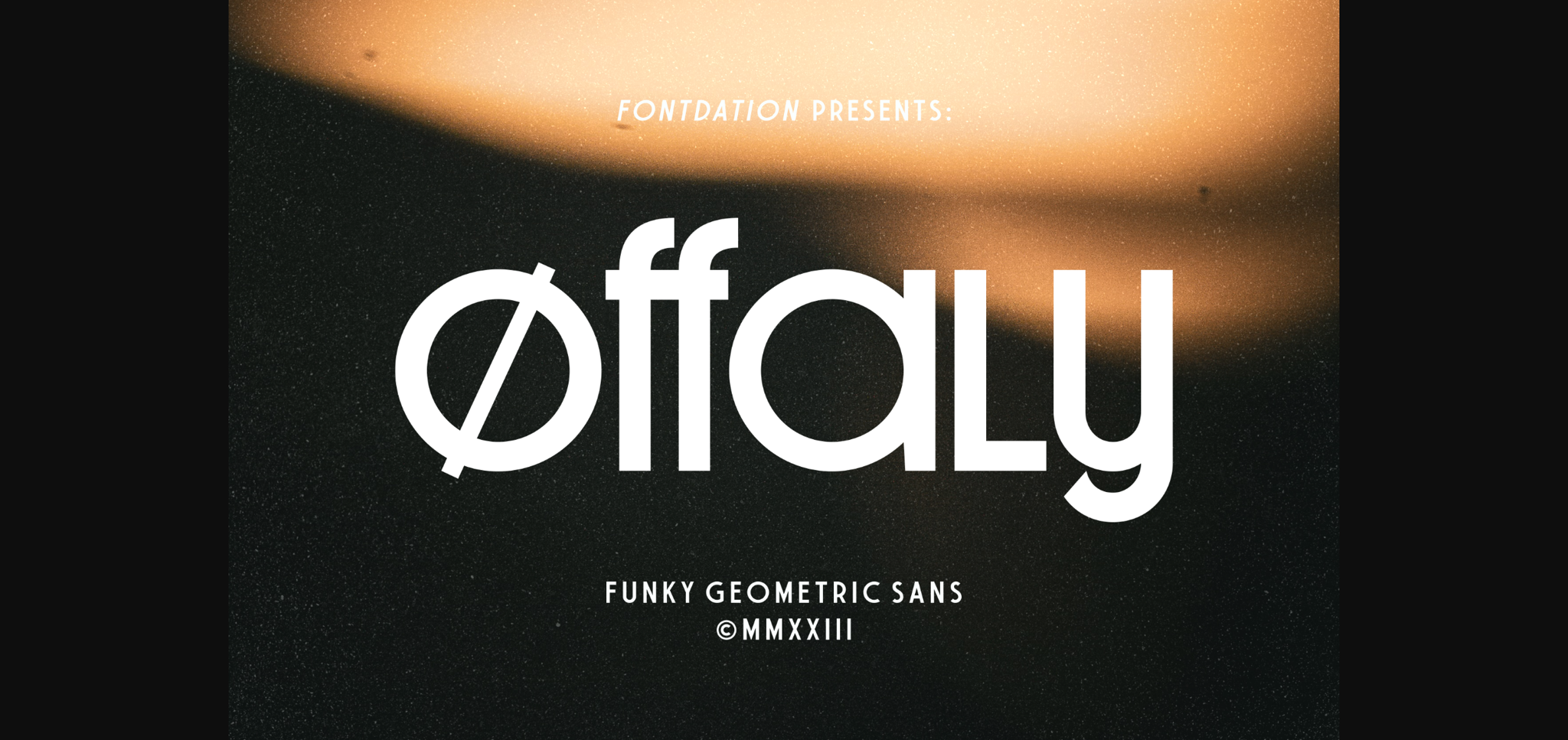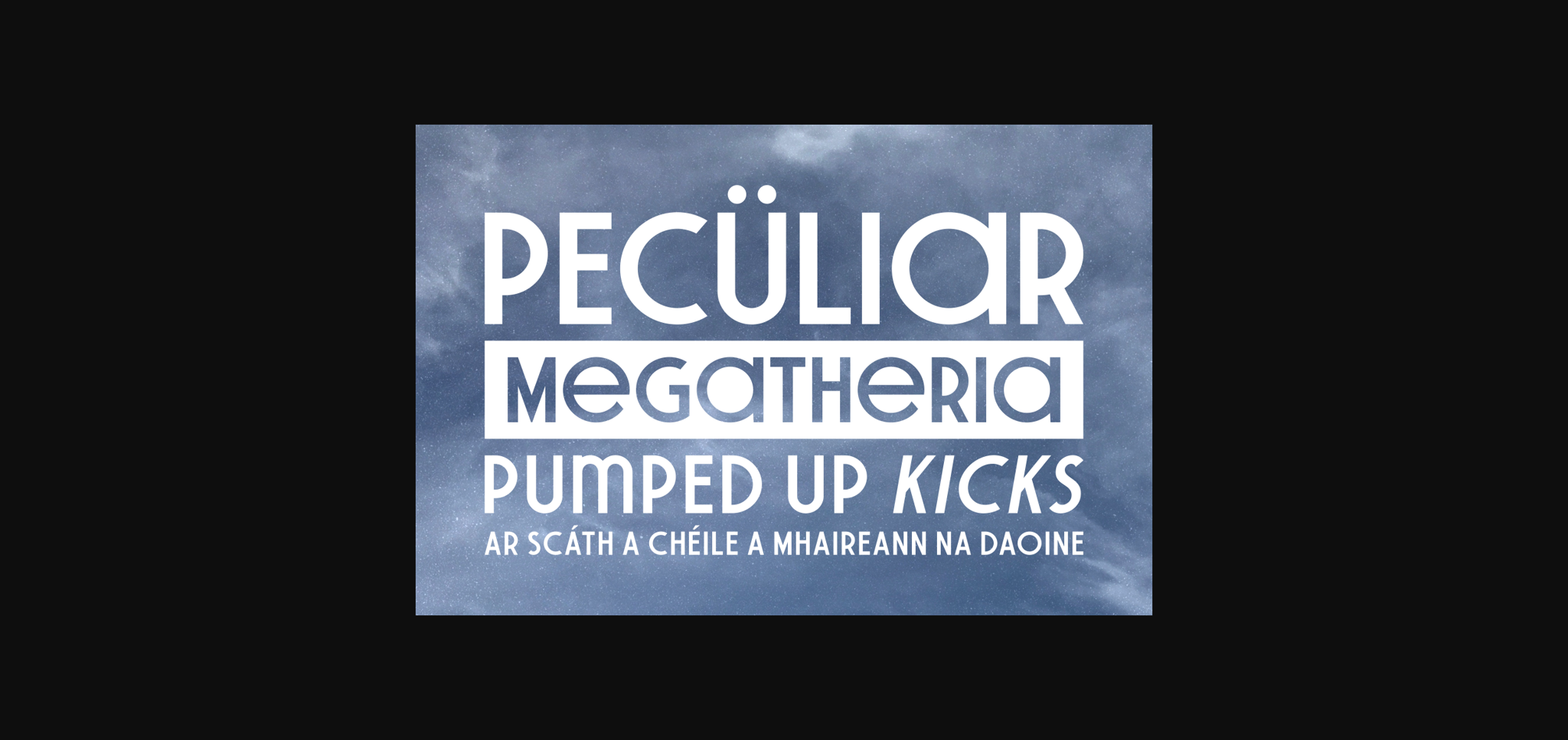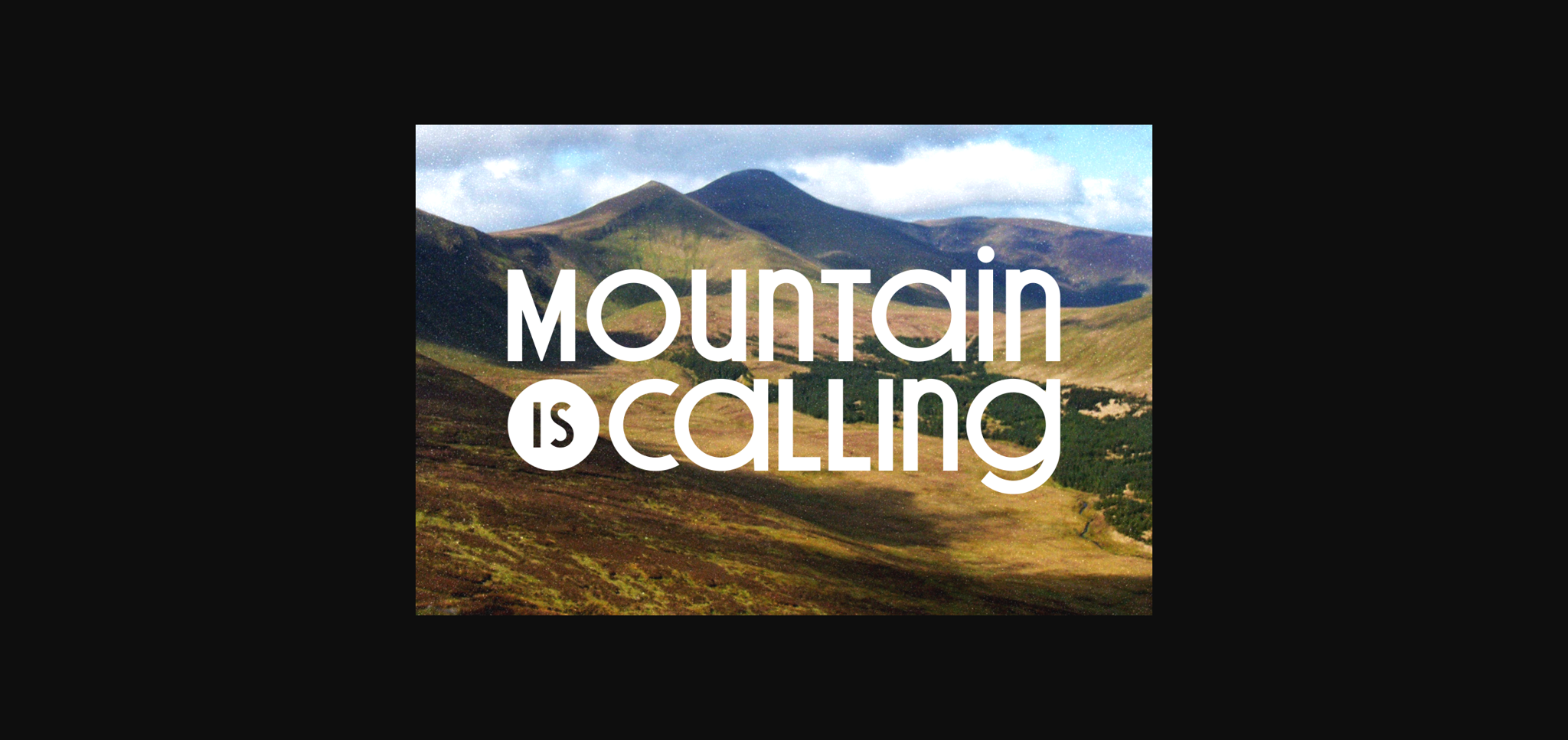
About Offaly Font
Offaly is a funky geometrical sans font. Suits best for logo/branding, headline, poster, packaging, etc. Combine the upper and lowercase to get the outstanding letter combinations.